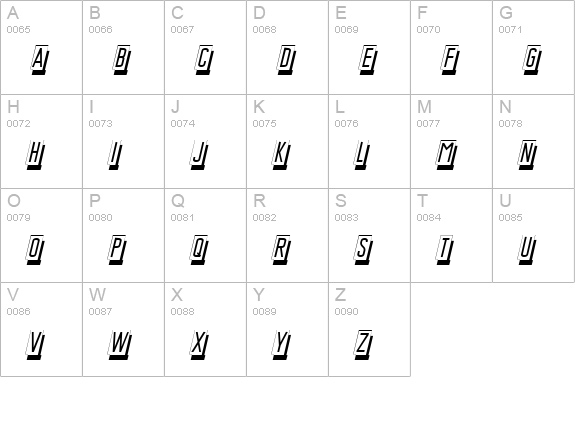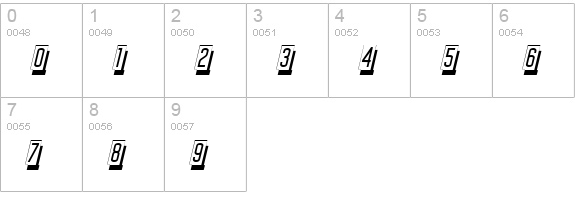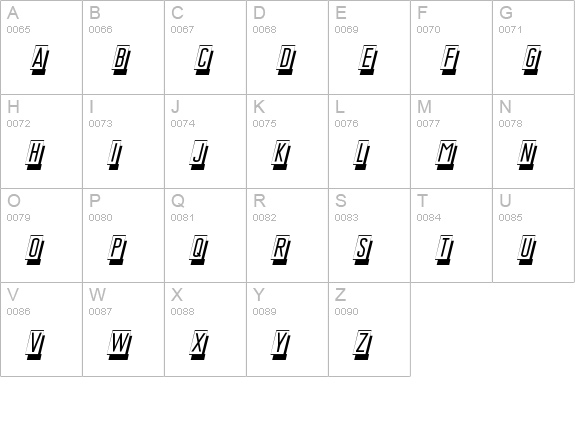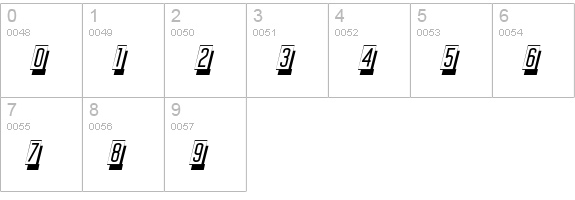
DG_MasterCard Font Details
DG_MasterCard font is a sleek and modern typeface that exudes sophistication and elegance. Its clean lines and sharp angles make it perfect for a wide range of design projects, from branding to editorial design. The font features a unique blend of geometric shapes and contemporary styling, giving it a distinct and eye-catching look. One of the best things about DG_MasterCard font is that it is available for free download at FontsMarket.com. This means that you can easily access this stylish font without any cost, making it a valuable addition to your font collection. Whether you are a graphic designer, web developer, or just someone who appreciates good typography, DG_MasterCard font is sure to elevate your projects and help you stand out from the crowd.